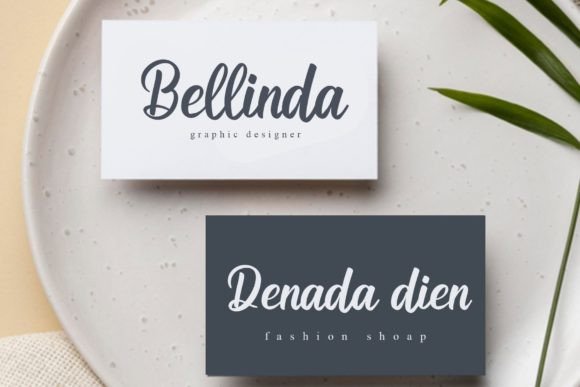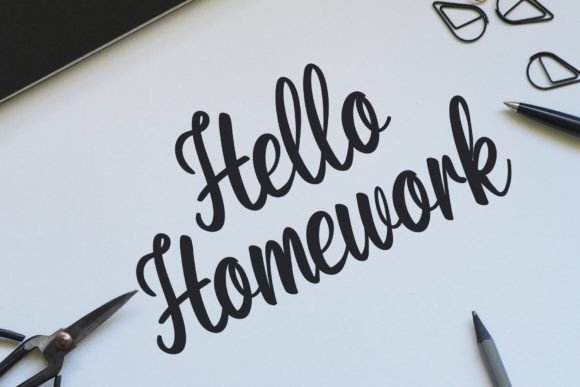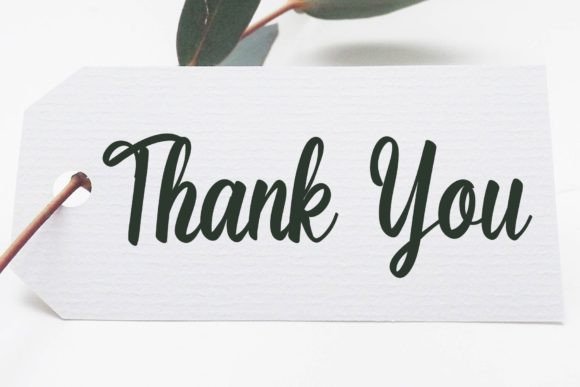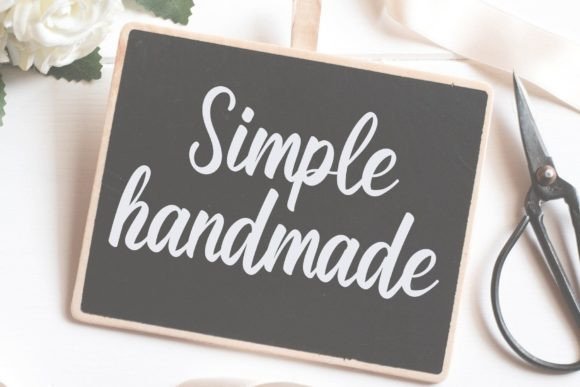
“Handmade” is an exquisite handwritten font, masterfully designed to earn a well-deserved place as a true favorite. With a blend of classy calligraphic influences and a contemporary, fresh feel, this font maintains a timeless quality while adding a modern touch. Fall in love with “Handmade” and watch as it elevates your projects to new heights.
The font’s classy calligraphic influences give it a touch of elegance, making it suitable for a wide range of applications. Whether used for invitations, branding, or creative projects, “Handmade” brings a sense of sophistication to your designs.
Despite its classic influences, “Handmade” also feels contemporary and fresh, making it a versatile choice for those seeking a font that transcends traditional boundaries. Its ability to balance timeless charm with modern appeal ensures that it can enhance the visual aesthetics of various design projects.
In summary, “Handmade” is more than just a font; it’s a meticulously crafted tool designed to add a touch of elegance and contemporary flair to your creative endeavors. Fall in love with the seamless blend of classic and modern influences, and let “Handmade” elevate your projects to the highest levels of visual appeal.